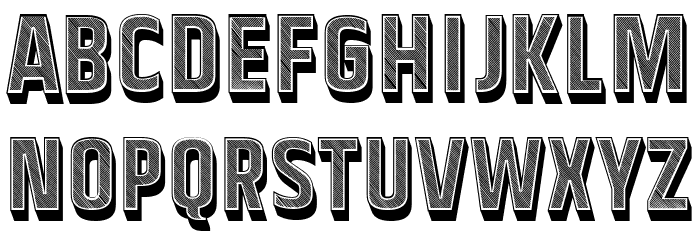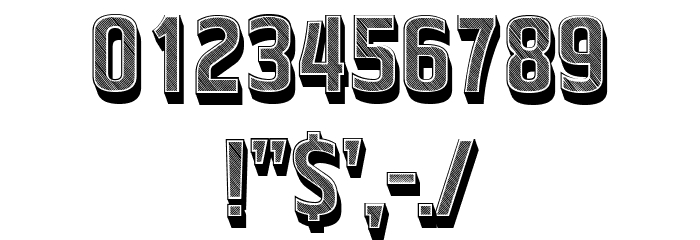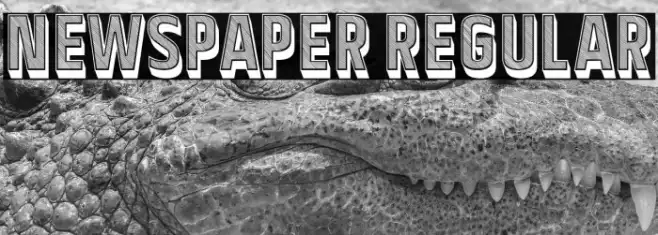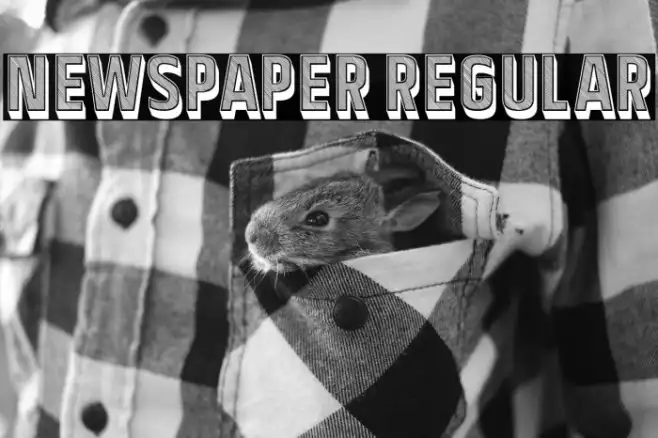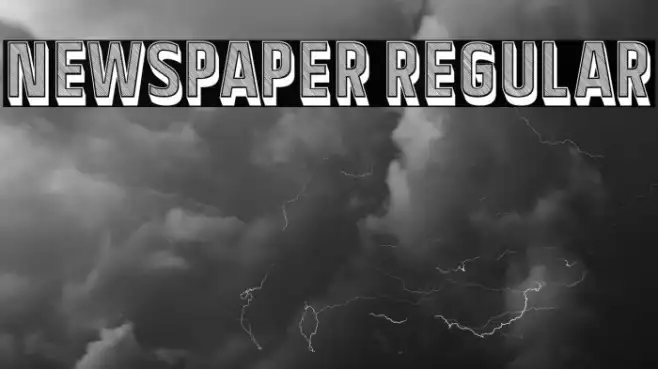
Newspaper Regular Font
This font features a bold, three-dimensional look with a vintage flair. The letters are capitalized and have a shadow effect that gives them depth and a sense of movement. The strokes are thick and consistent, creating a strong visual impact. The inner detailing of the letters includes a subtle pattern that enhances the overall texture, making it suitable for eye-catching designs. The numerals and special characters maintain the same stylistic elements, ensuring uniformity across all glyphs.
A bold, three-dimensional font with a vintage, textured style.
- Font: Newspaper Regular
- Proposed Projects: Ideal for poster designs, vintage-themed branding, headlines, and any project requiring a strong, impactful typeface.
- Overall Style: Vintage